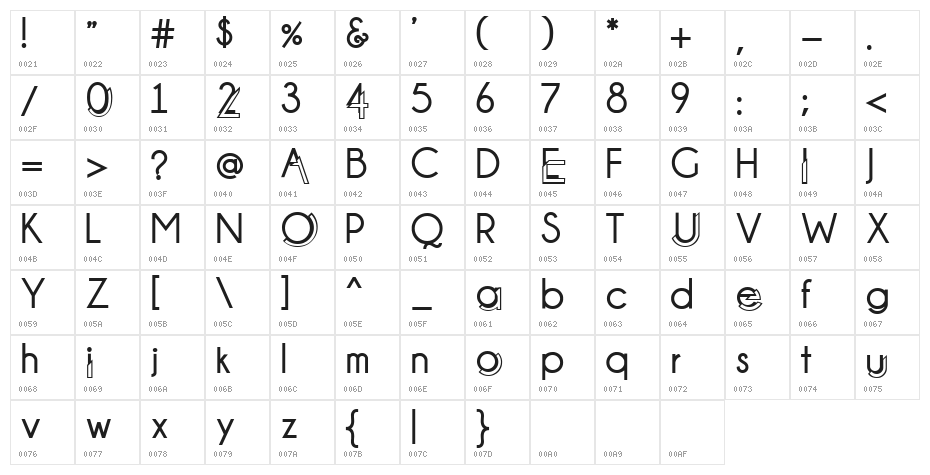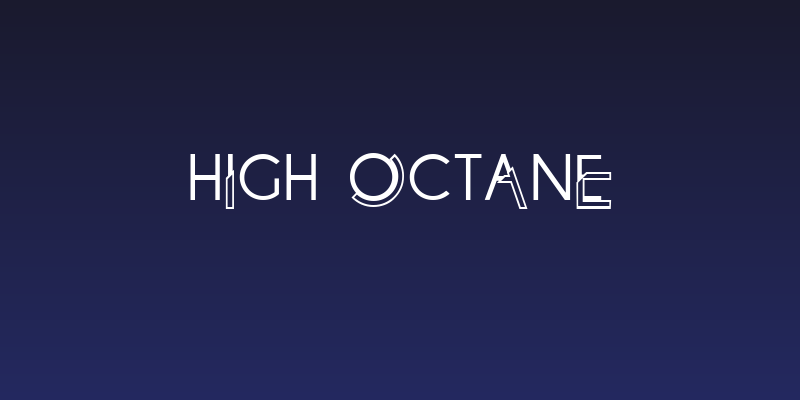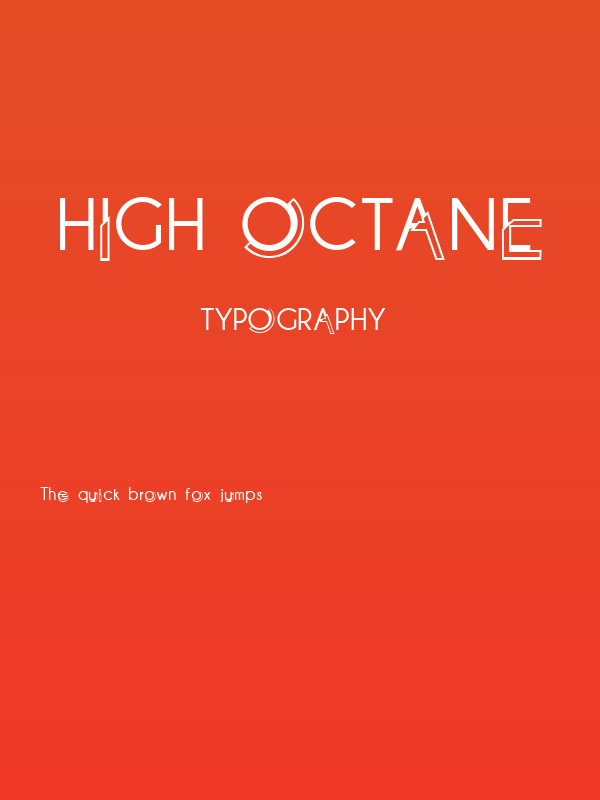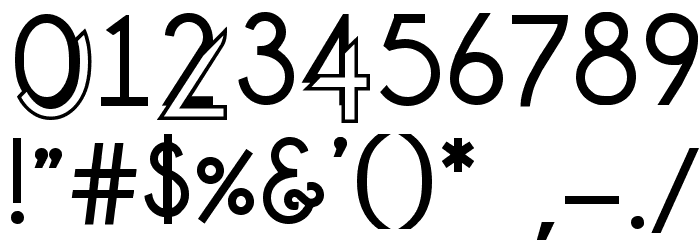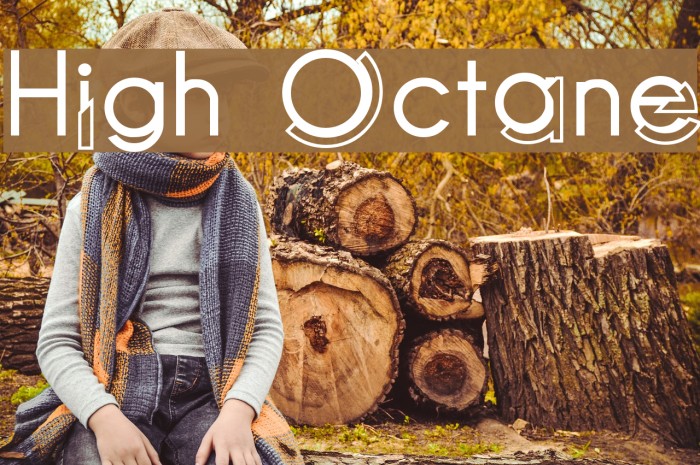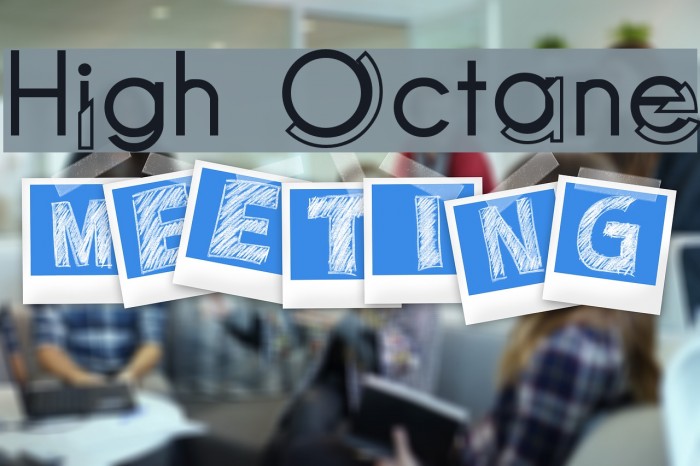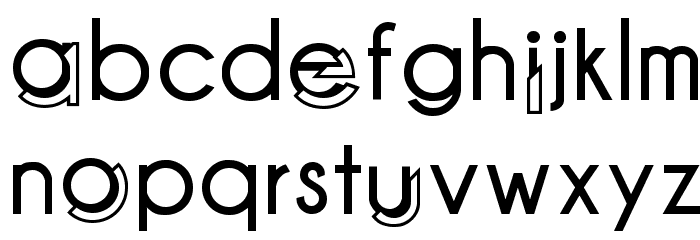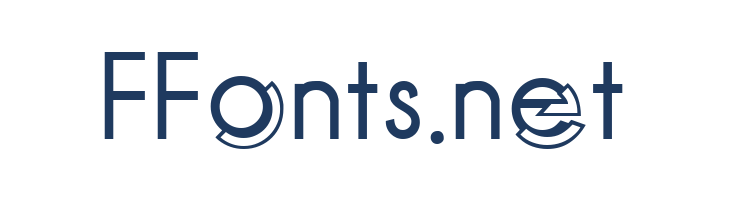
High Octane Font
High Octane Description
This font features a bold and dynamic design with a modern twist. The uppercase letters are characterized by unique geometric shapes and varying line thicknesses, creating a sense of movement and energy. The lowercase letters maintain a consistent style, with rounded edges and a clean, streamlined appearance. Numbers and special characters follow the same design principles, ensuring a cohesive look throughout. The font's distinct style makes it ideal for projects that require a contemporary and eye-catching aesthetic.
| Proposed Projects | Ideal for branding, advertising, posters, and digital media that require a modern and energetic look. |